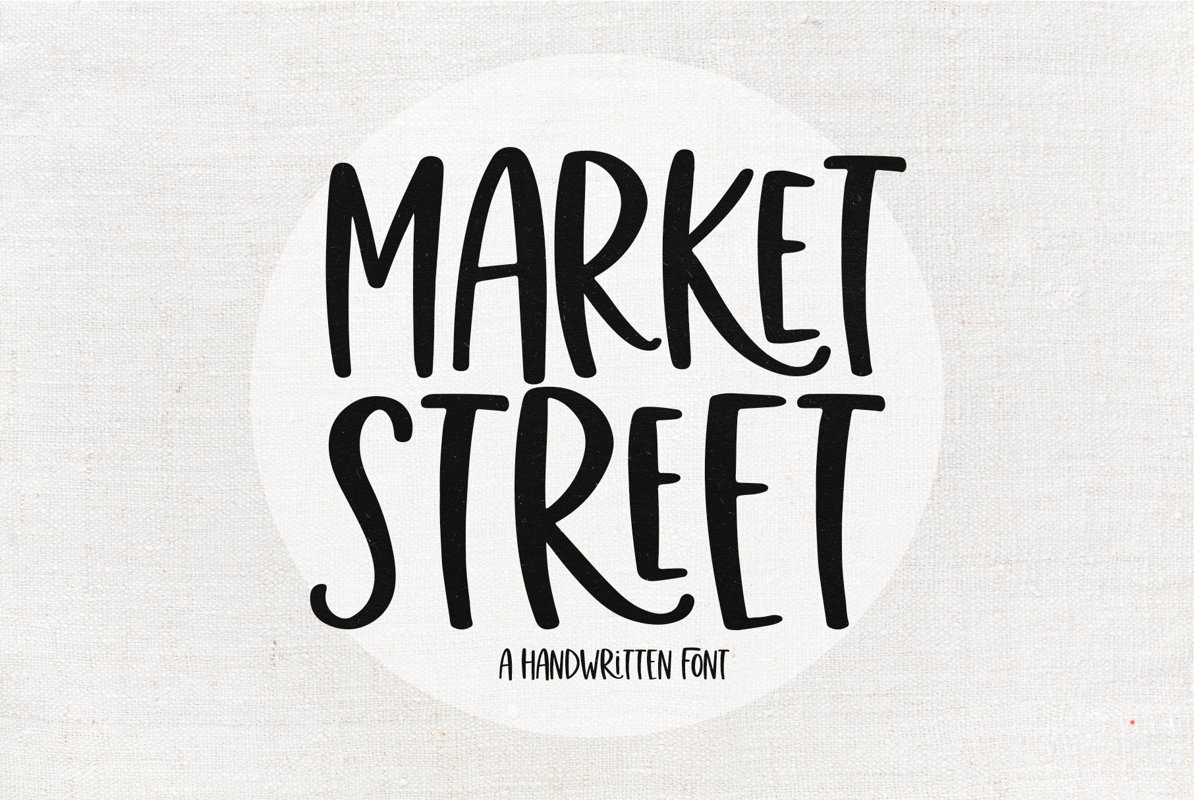
Market Street - A Fun Handwritten Font
Market Street is a fun handwritten font!
The capital/lowercase letters are the same.
This font is perfect for quotes, shirt designs, websites, branding, children's designs, svg designs, blogs, logos, invitations and more!